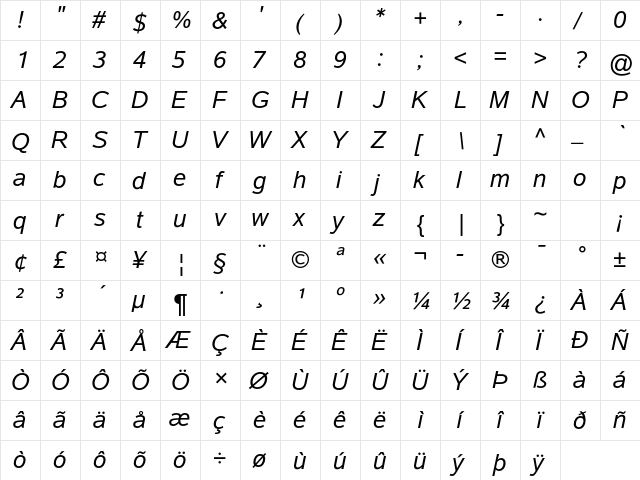
Albany Std Italic
Design Context for Albany Std Typeface
Albany Std offers clean, dependable letterforms without strong stylistic allegiance, making it a practical choice for designers who need flexibility. The dynamic lean of this cut emphasises speed and emphasis in any layout.
Pro Tip: Try Albany Std for annotation and caption copy alongside an upright companion — the contrast in angle creates a dynamic but ordered typographic system.